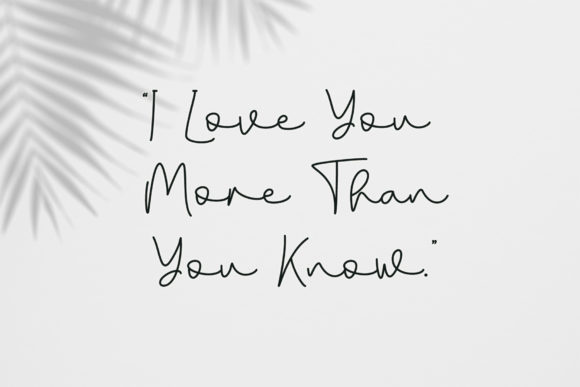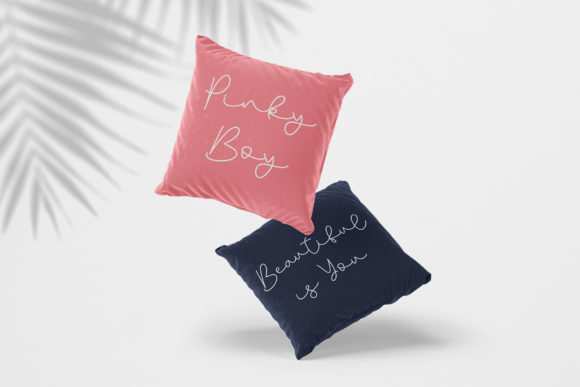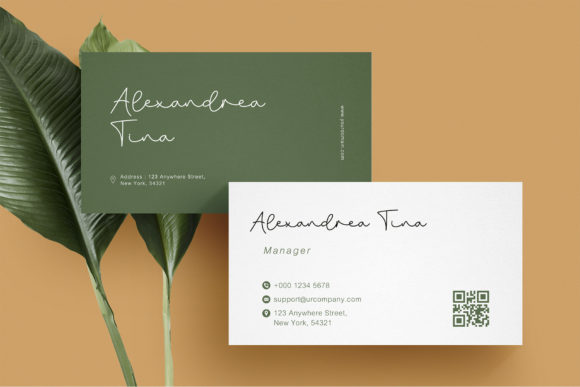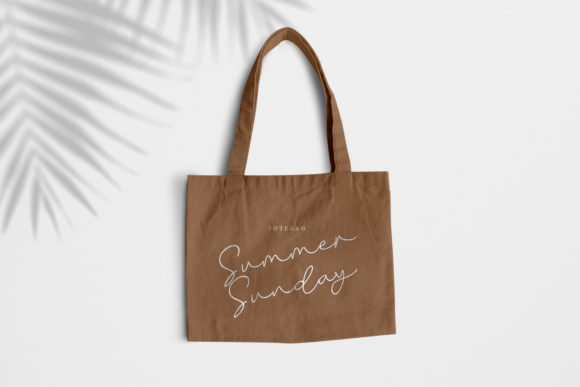
Salminah Font
About Salminah Font
Salminah is a fashionable and thin lettered script font. Suitable to a wide variety of designs due to its neat and simple style, this font has the potential to become your favorite go-to font, no matter the occasion!